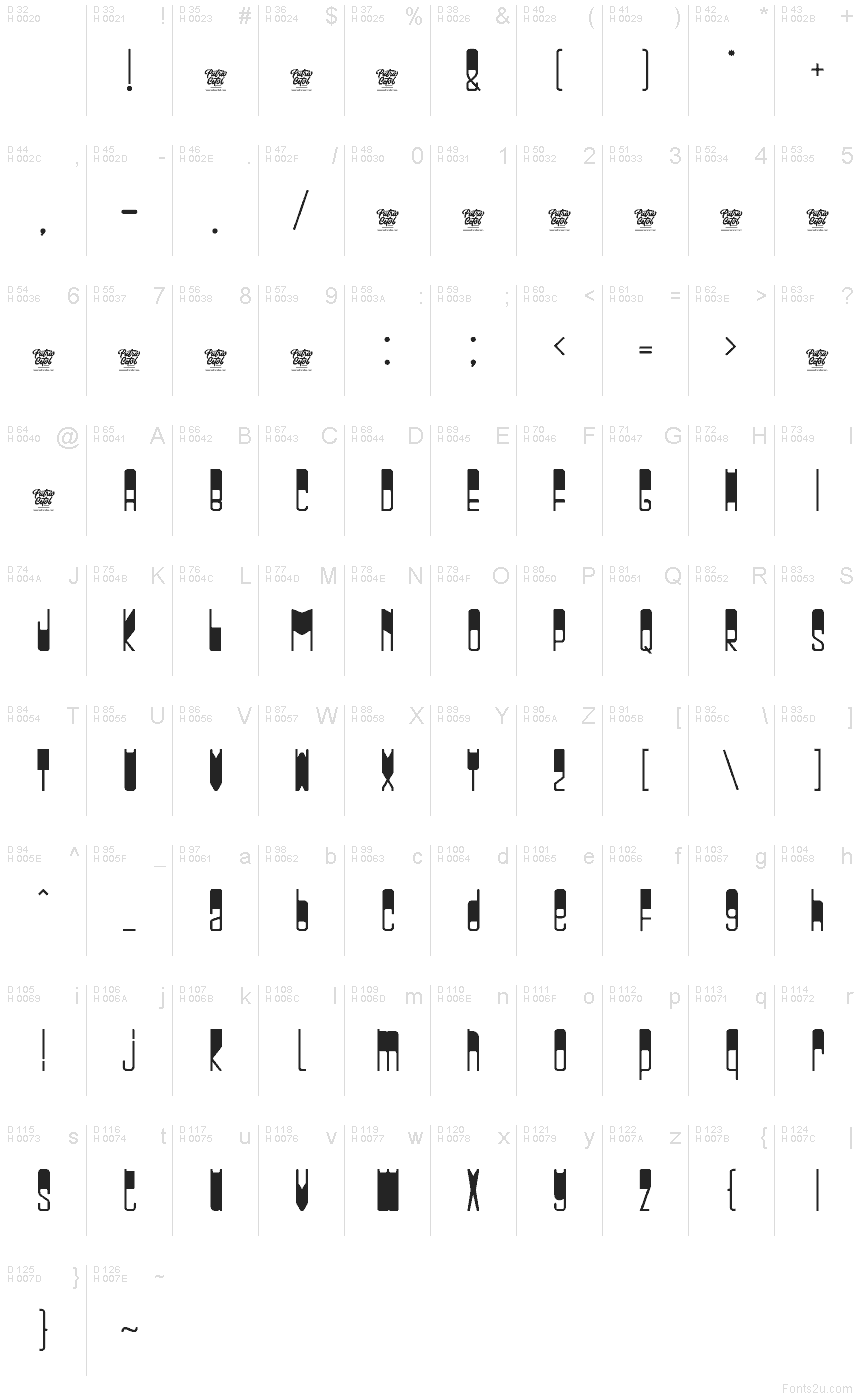
BULKY BOOK
Bulky book font by PutraCetol Studio is a modern display font that combines geometric shapes with a minimalist utilitarian design. Its futuristic appearance is impactful and eye-grabbing, despite its condensed width and block-like style. Each letter appears groovy with precise lines in a simple approach to the viewer.